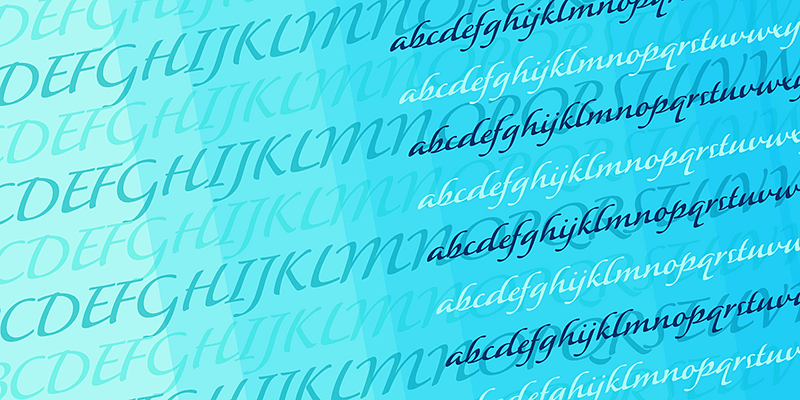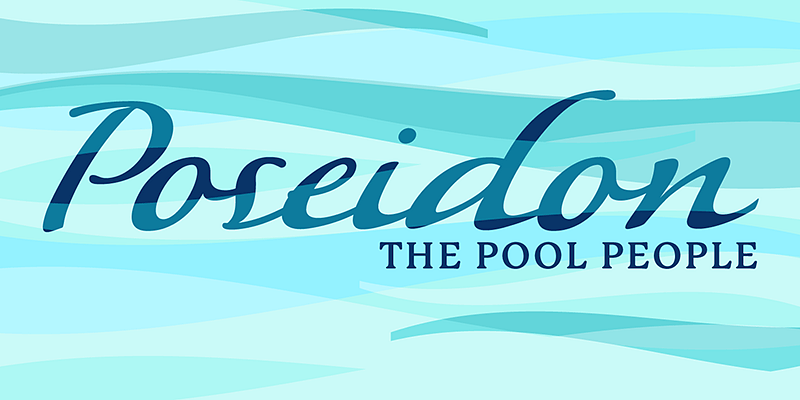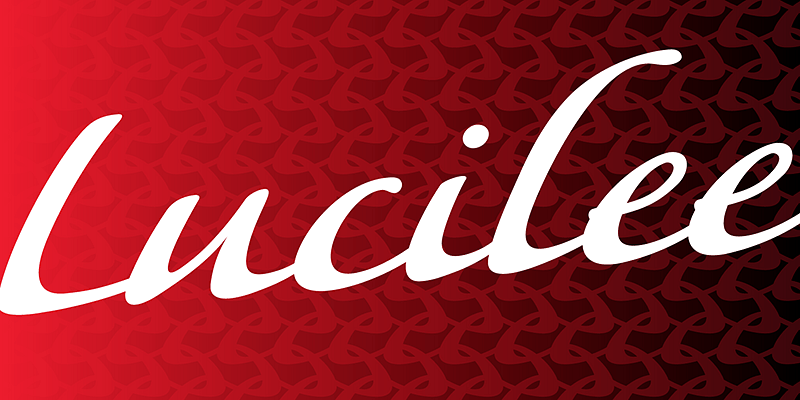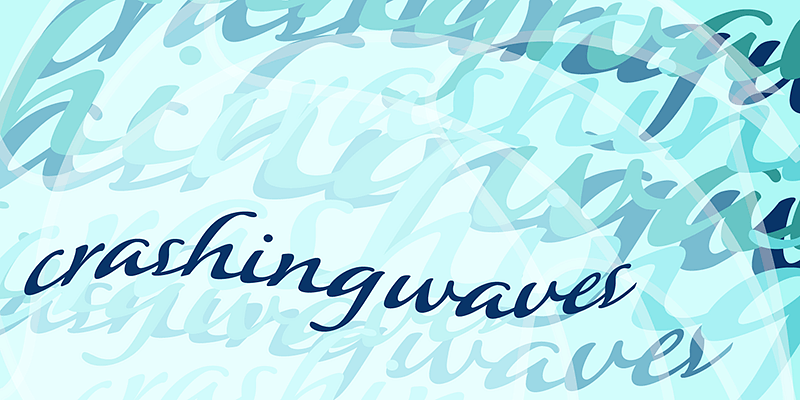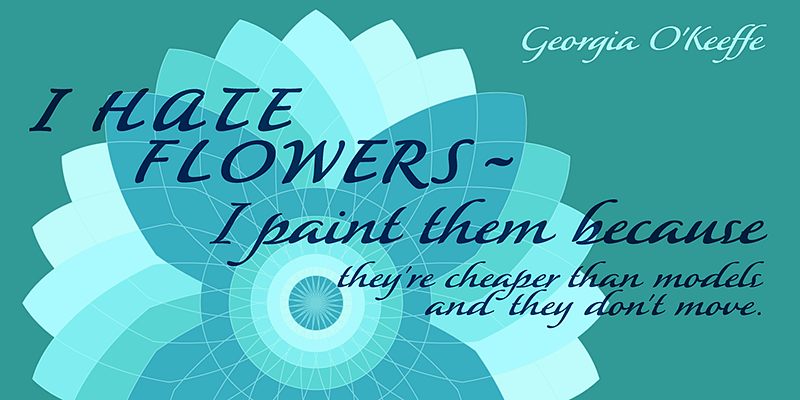
P22 Lucilee is a joining script designed by Michael Clark that is sweeping and fluid. Suitable for titling and packaging alike, Lucilee has a broad variety of uses.